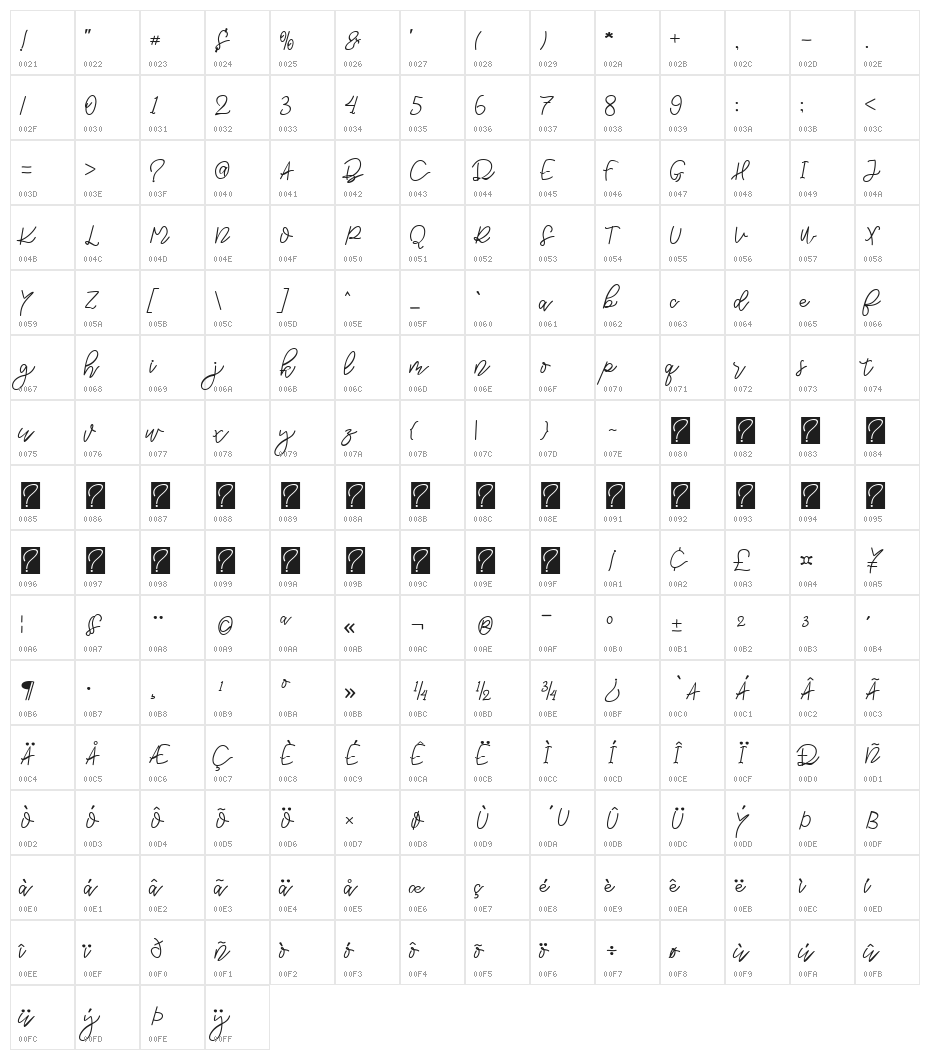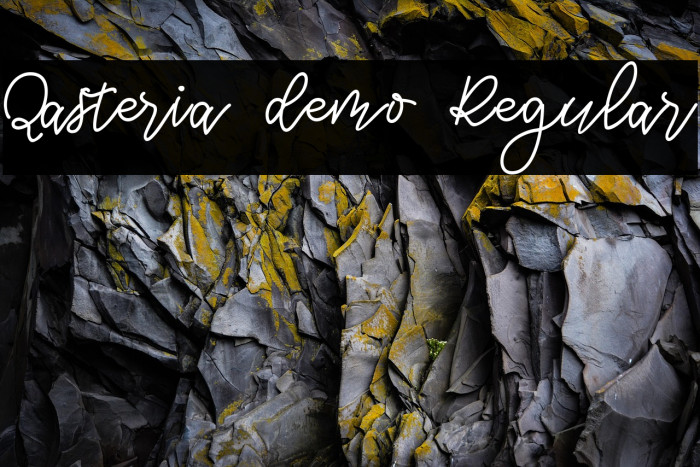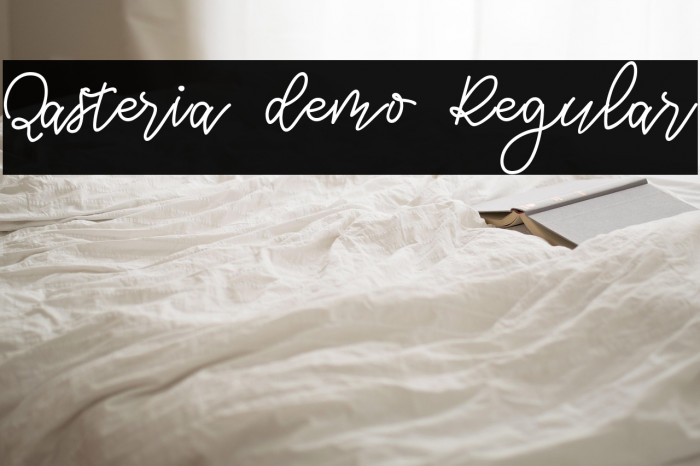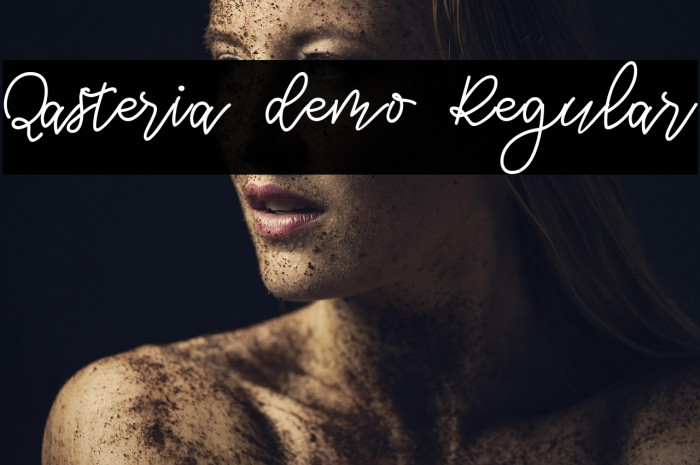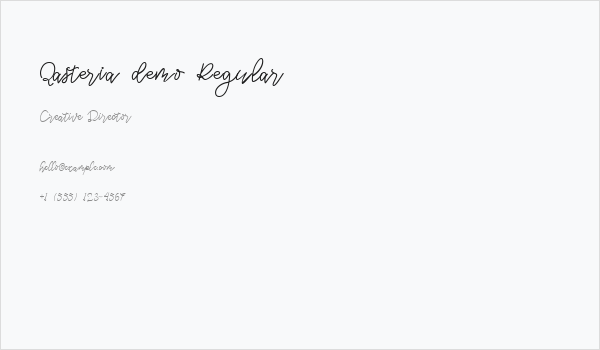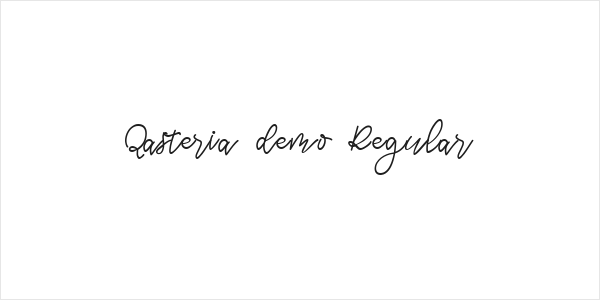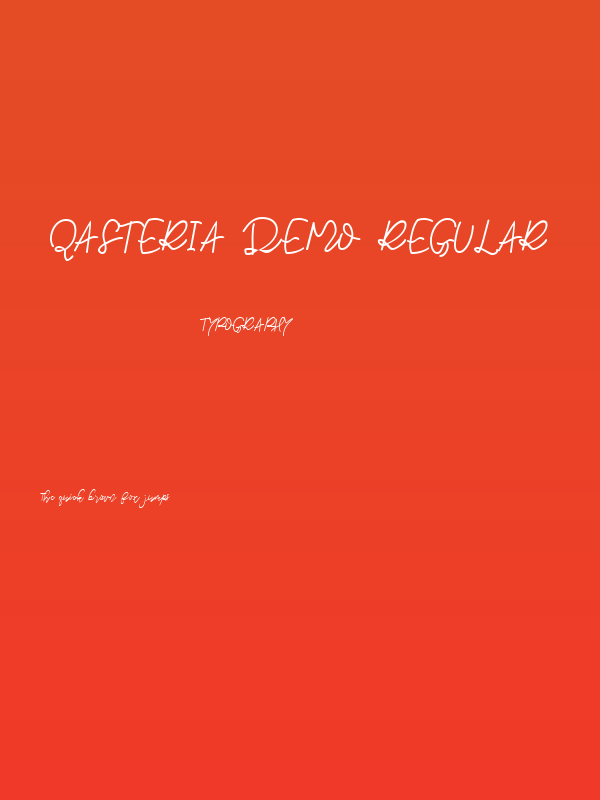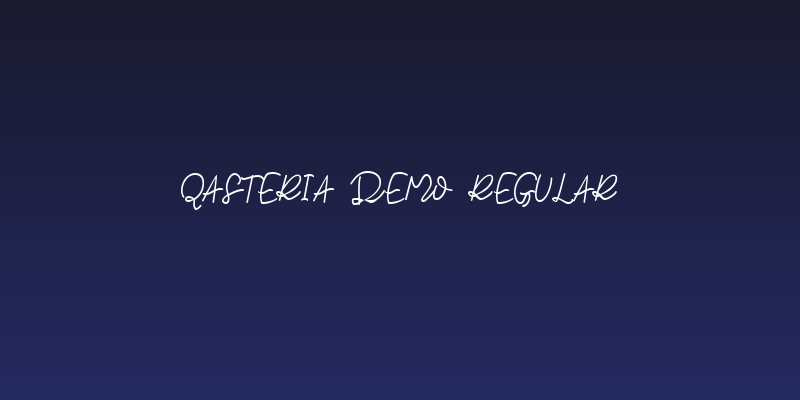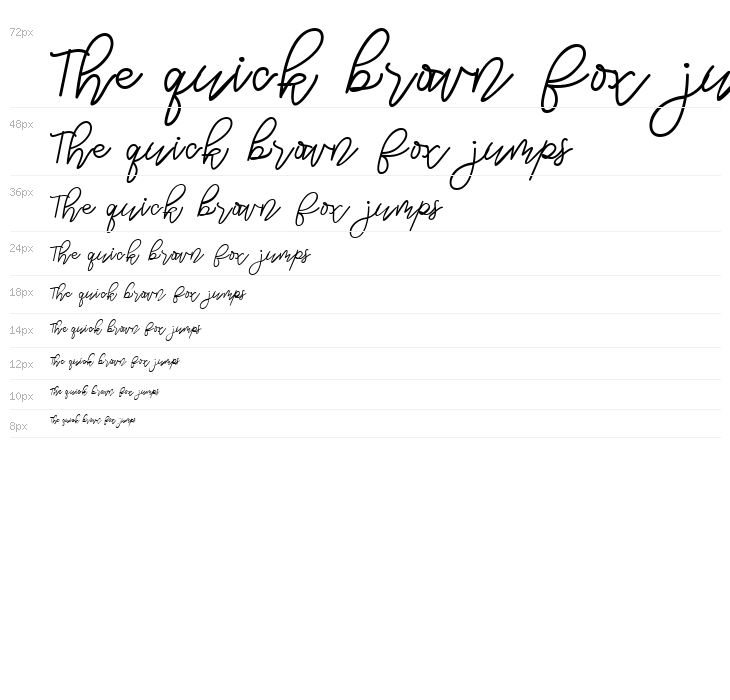
Qasteria demo Regular Font
Qasteria demo Regular Description
This font features a flowing, cursive style that mimics elegant handwriting. The characters are interconnected, creating a seamless and fluid appearance. The uppercase letters are bold and prominent, while the lowercase letters maintain a consistent flow with graceful loops and curves. The numerals are distinct yet harmonize well with the overall script style. Special characters are crafted with the same attention to detail, ensuring they blend seamlessly with the alphabet. This font exudes a sense of sophistication and personal touch, making it ideal for projects that require a handwritten aesthetic.
| Overall Style | Elegant, Handwritten |
| Proposed Projects | Ideal for wedding invitations, personal branding, greeting cards, and any project that requires a personal, elegant touch. |